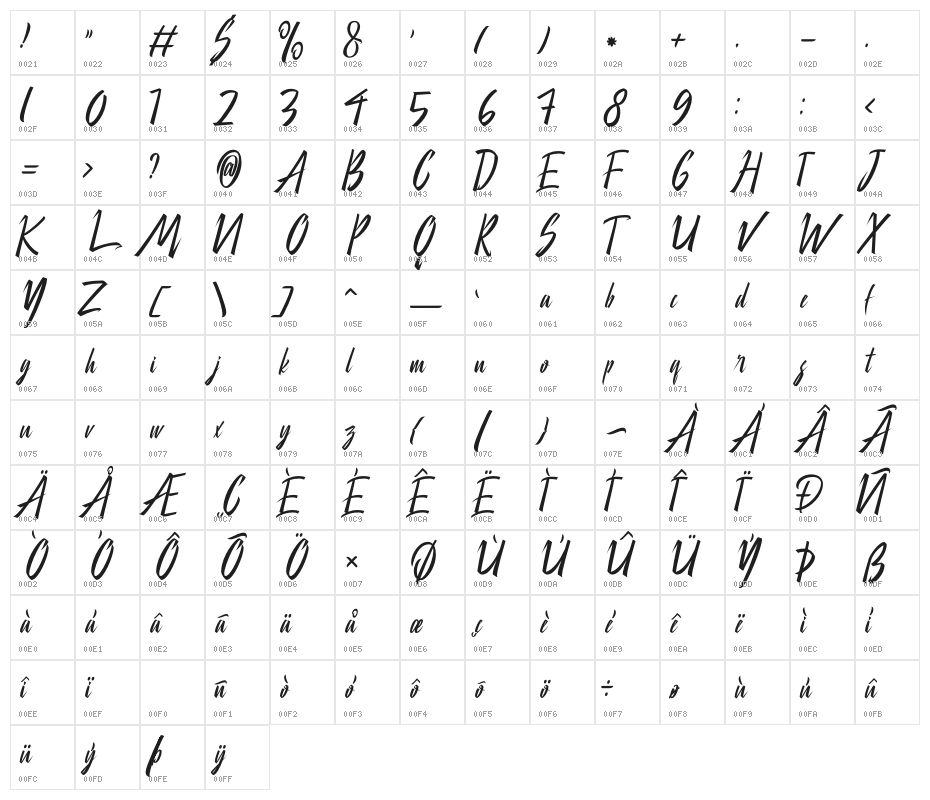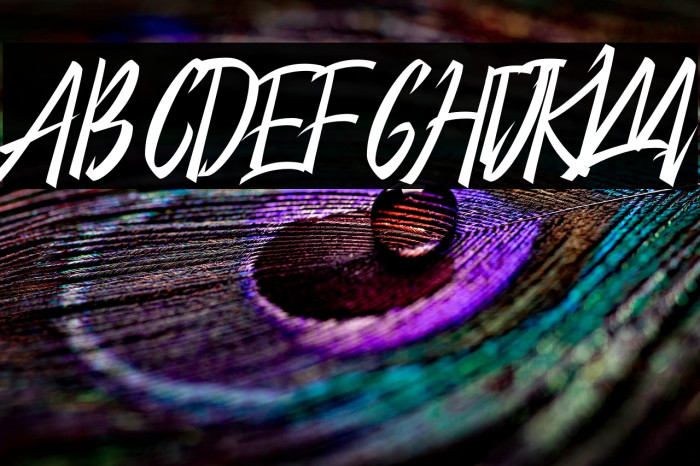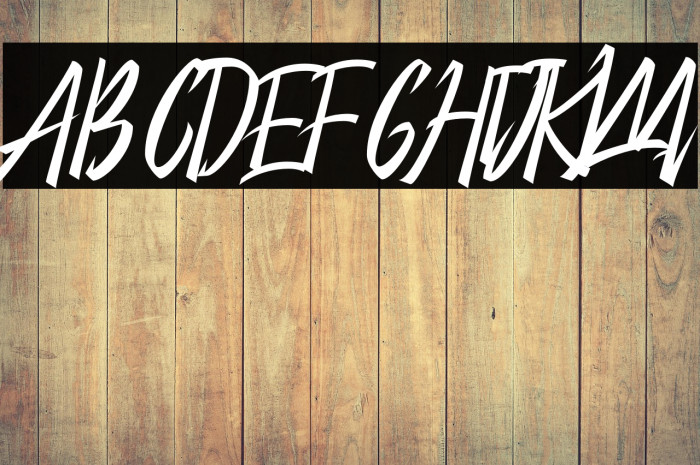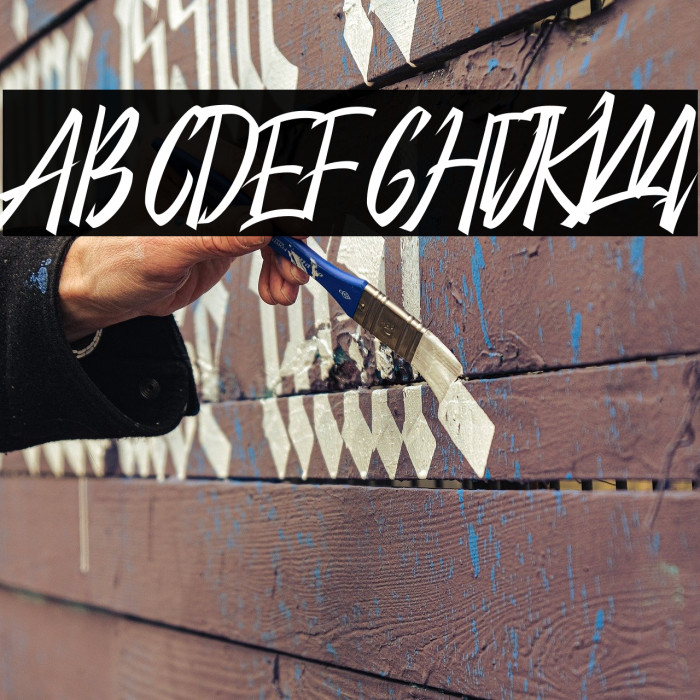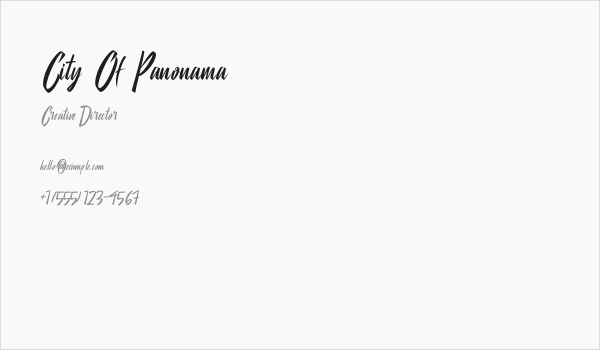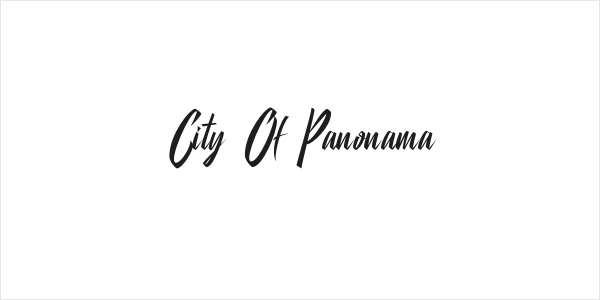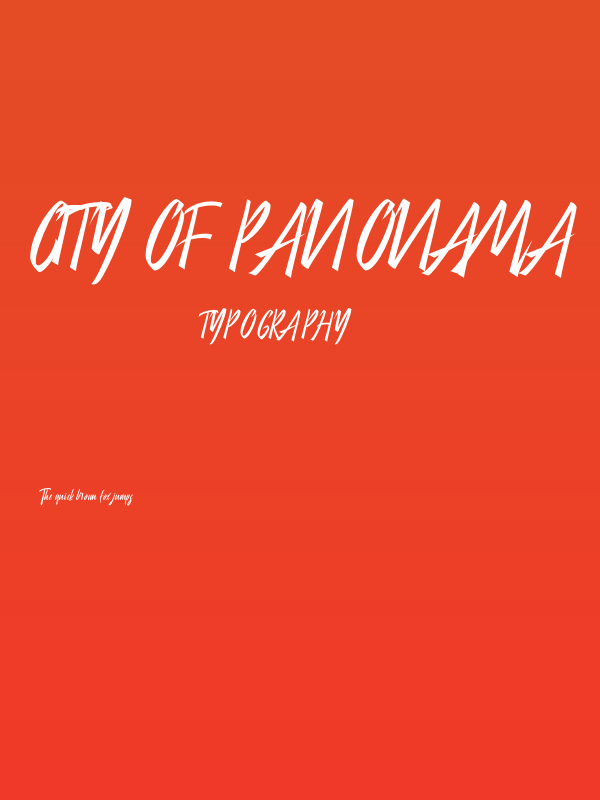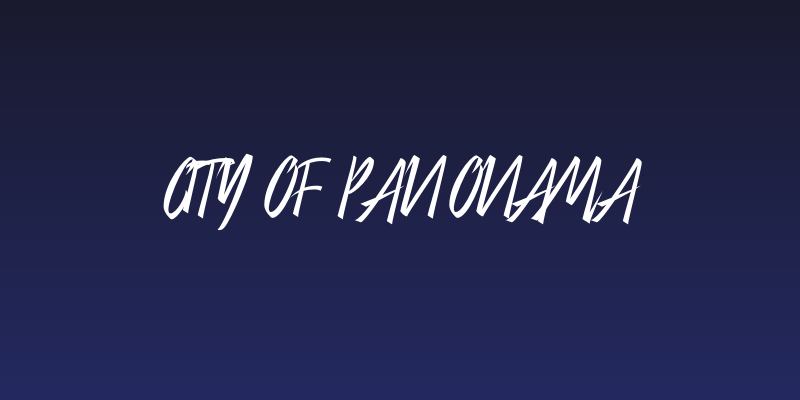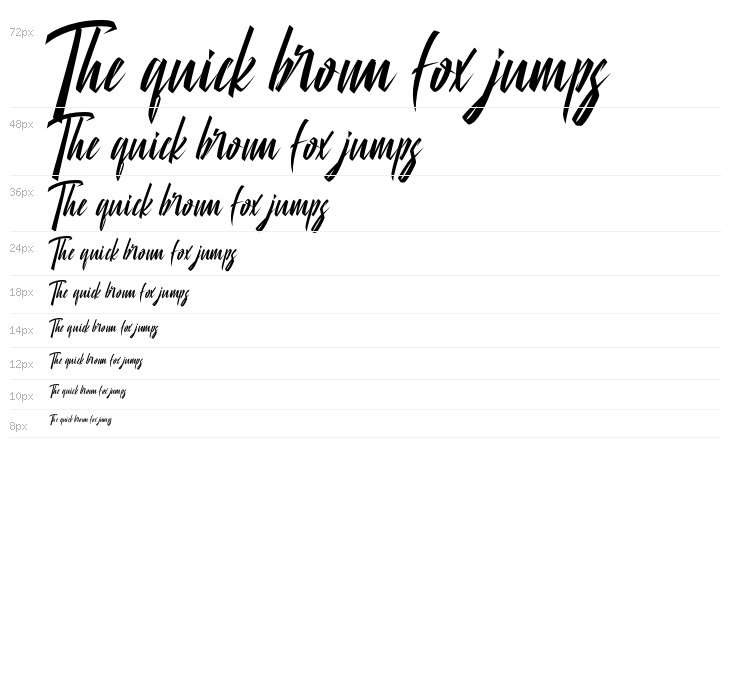
City Of Panonama Font
City Of Panonama Description
A bold, expressive script font with dramatic, angular strokes and a handwritten, brush-pen appearance. The uppercase letters are large and dynamic, while the lowercase letters are more controlled but still energetic. The numerals and punctuation maintain the same lively, artistic style.
| Overall Style | Decorative, Modern, Expressive |
| Use Case | Headlines, Logos, Posters, Artistic projects |
| Proposed Projects | Posters, branding, album covers, event invitations, expressive headlines. |